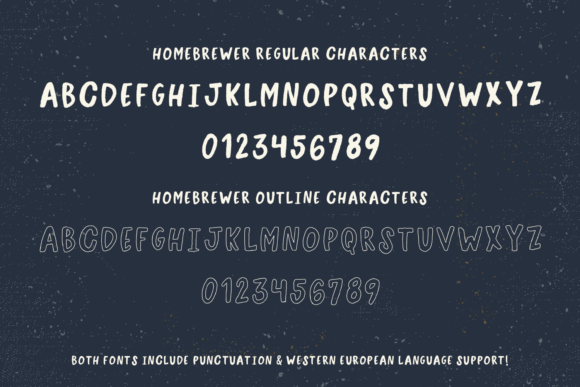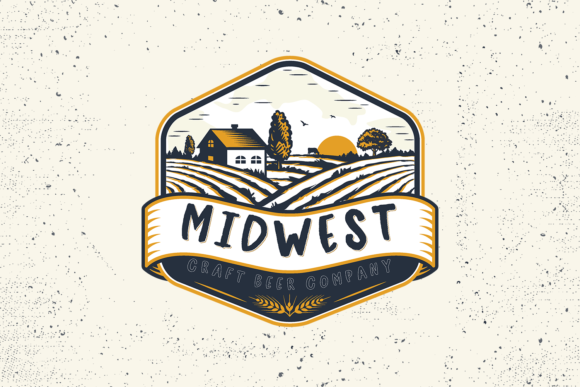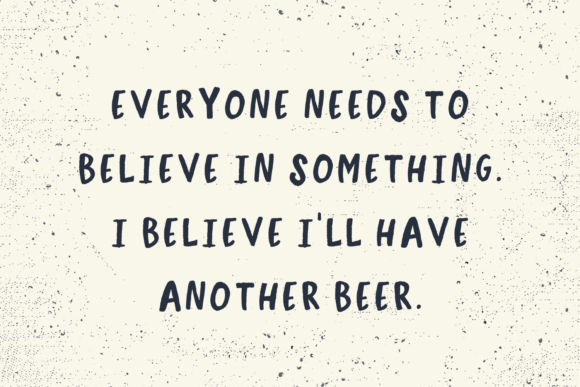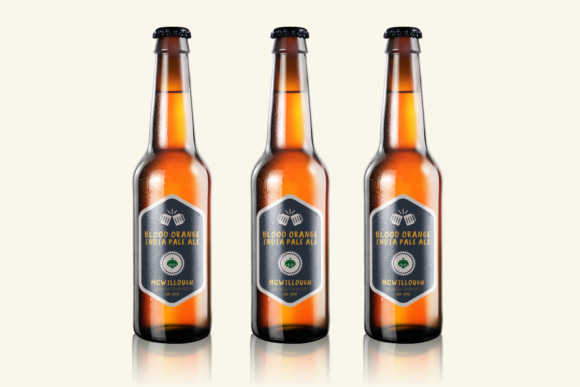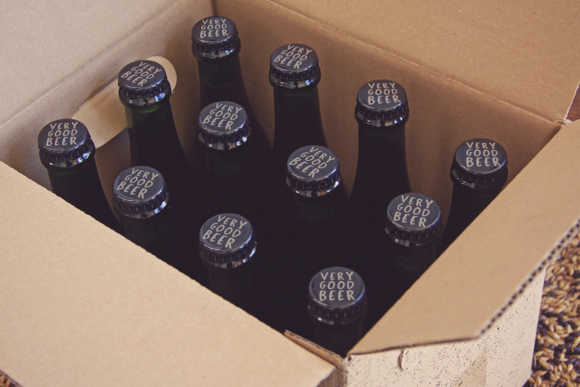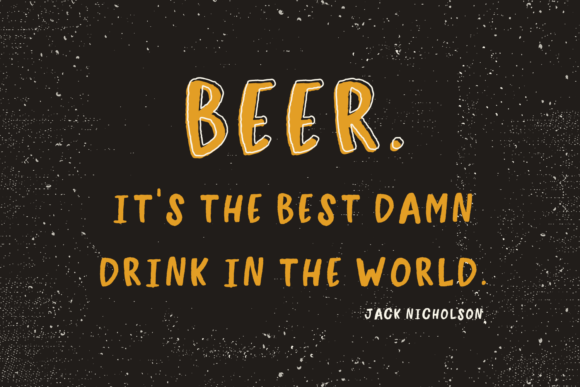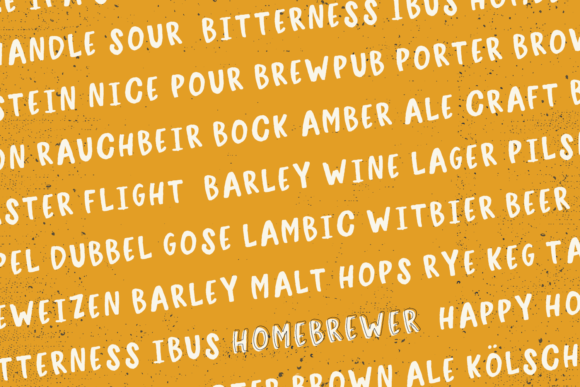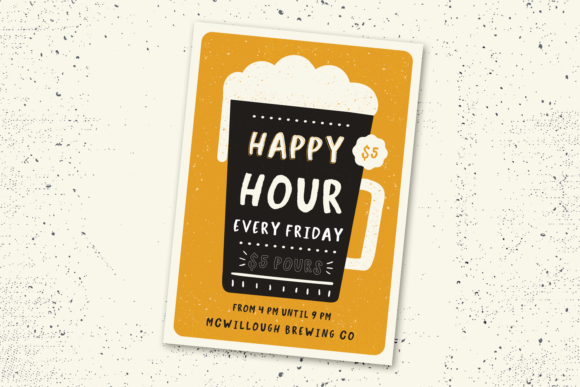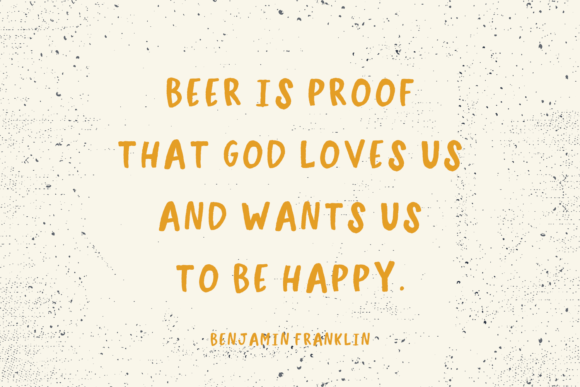
Homebrewer Sans Font
About Homebrewer Sans Font
Homebrewer Sans is a fun handwritten font with an incredible feel. It is perfect for heading, quotes, posters and of course, beer!